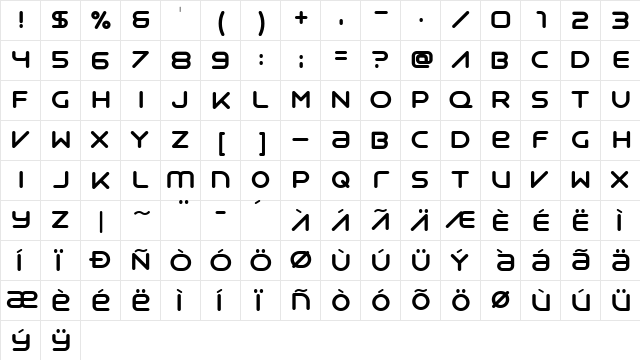
Syntha Regular
| Foundry | Ivan Filipov, neogrey creative |
| Designer | Ivan Filipov |
Design Context for Syntha Typeface
Syntha is a composed and adaptable typeface that performs quietly and consistently across a wide range of design contexts.
Pro Tip: Use Syntha in both headline and body roles to test its range before committing to a single application.